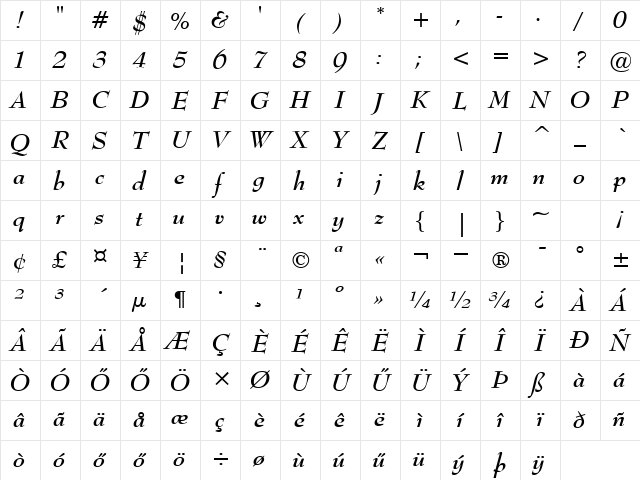
H_Bernhard Modern BT BoldItalic
Design Context for H_Bernhard Modern BT
H_Bernhard Modern BT is a composed and adaptable typeface that performs quietly and consistently across a wide range of design contexts. The slanted form adds forward momentum and visual energy. Its bold stroke weight gives it real presence on the page.
Pro Tip: Use H_Bernhard Modern BT for emphasis, pull quotes, and subheadings where its slanted energy can add rhythm to the layout.